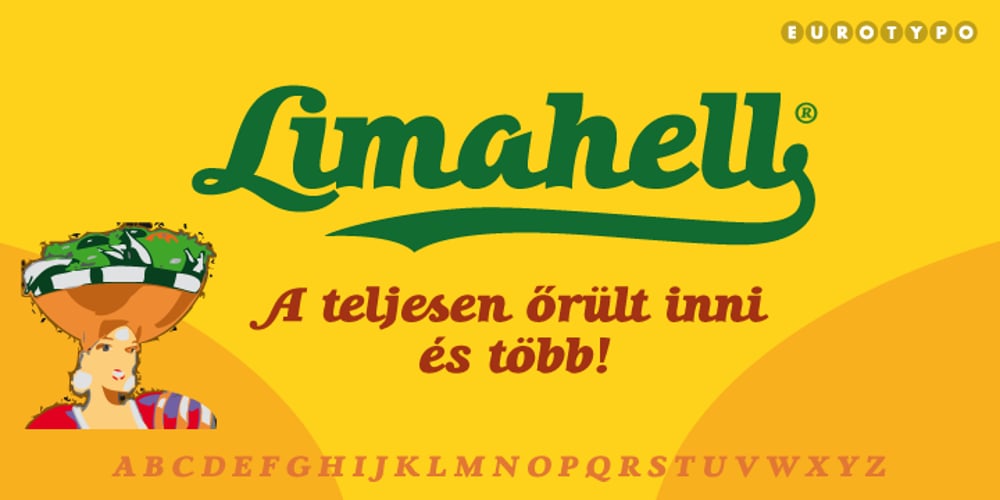
Lila Pro Font Family was designed by Olcar Alcaide and published by Eurotypo. Lila Pro contains 1 styles and family package options. Lila Pro has all the advantages of OpenType technology that allows a variety of combinations: standard ligatures, contextual alternates, discretional ligatures, word ending and tails. Specially designed for creating logos for products and packaging, this font can also be used as body text for its good legibility and accurate kerning.